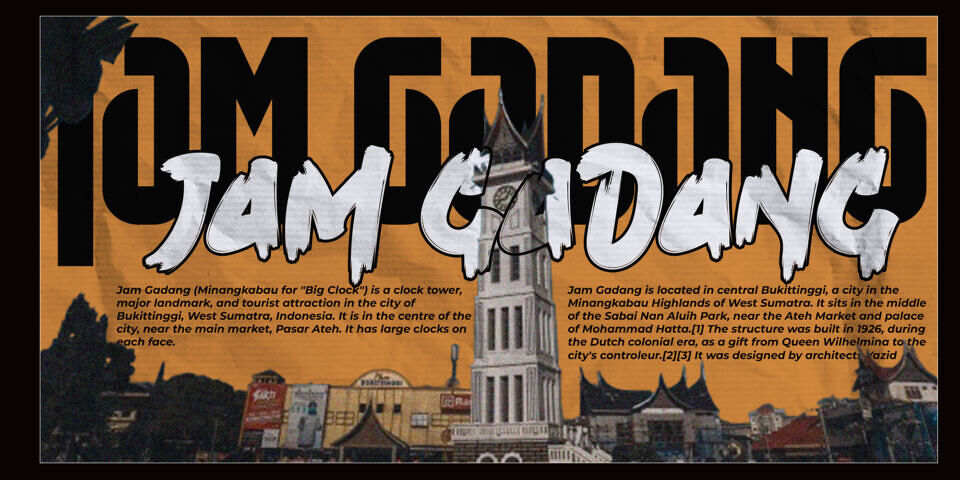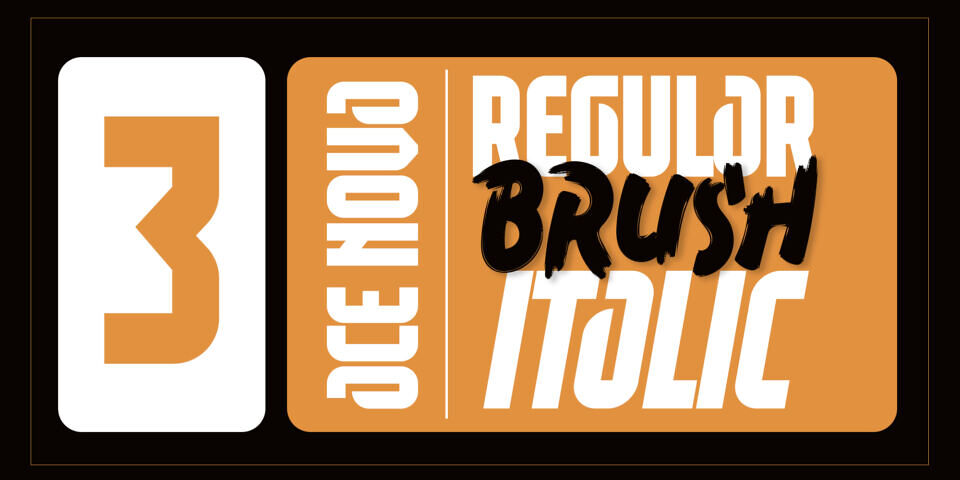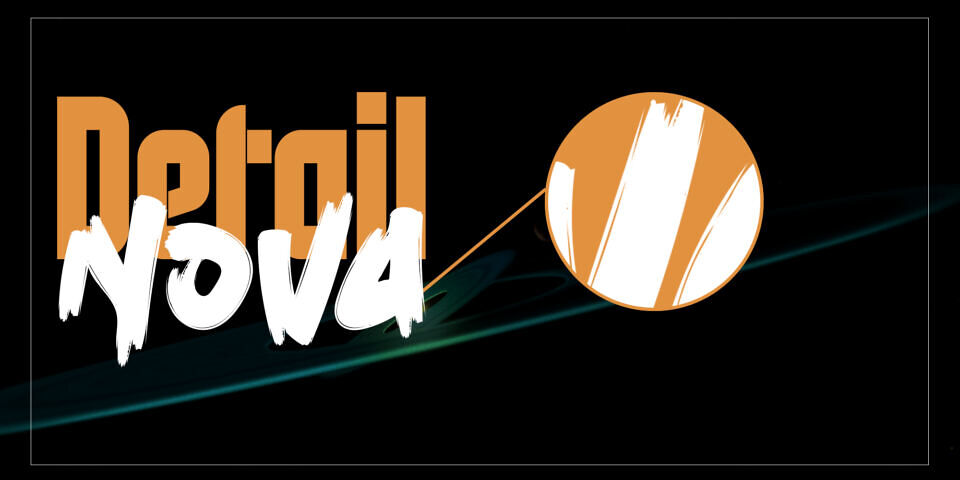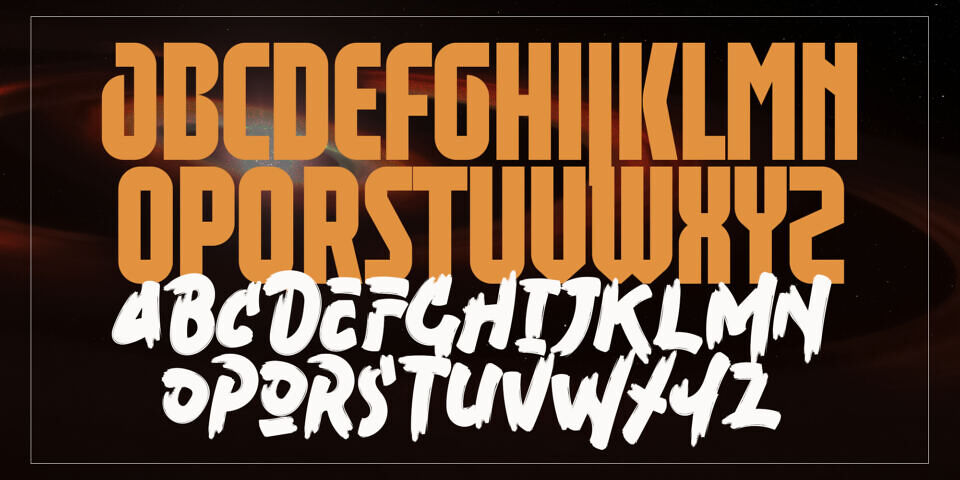
Ace Nova Duo Font
Introducing Ace Nova is a handwriting brush effect and sans serif. This font style inspired by urban style and branded makes in many ways for your latest project. Ace Nova is perfect for logos & branding, photography, invitations, watermarks, advertisements, product designs, stationery, wedding designs, labels, product packaging, special events or anything that requires handwritten content.